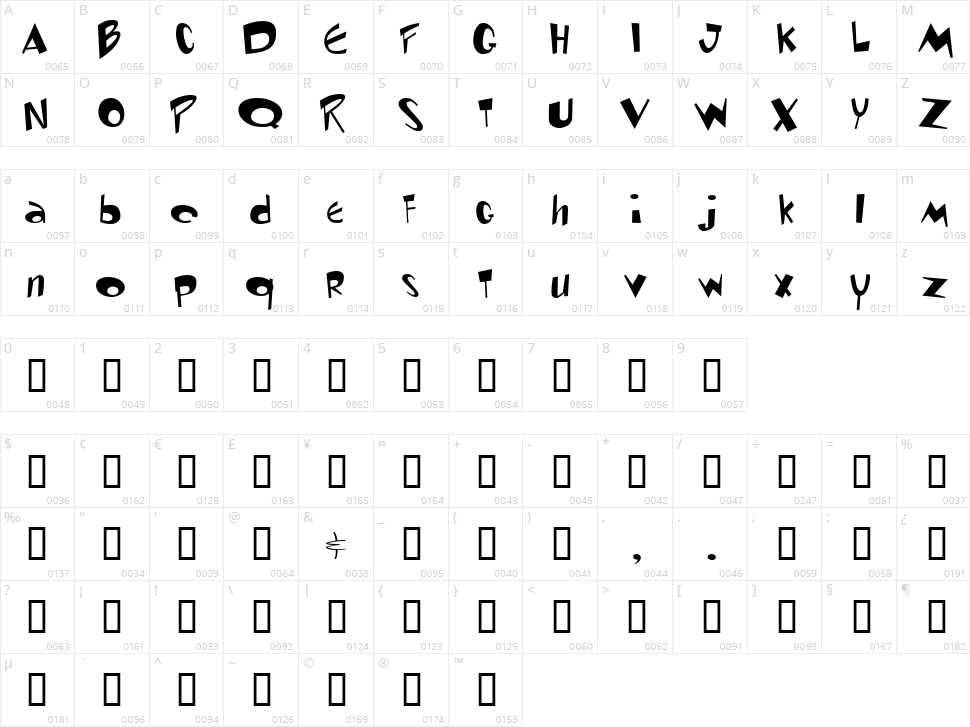
About TOONTIME
Oh Joy!!!!
TOONTIME is a font inspired by the distinctive lettering of a certain modern cartoon classic. The font contains many familiar characters, as well as some I created in the style of the original. Until now, this font has been difficult, if not impossible to find.